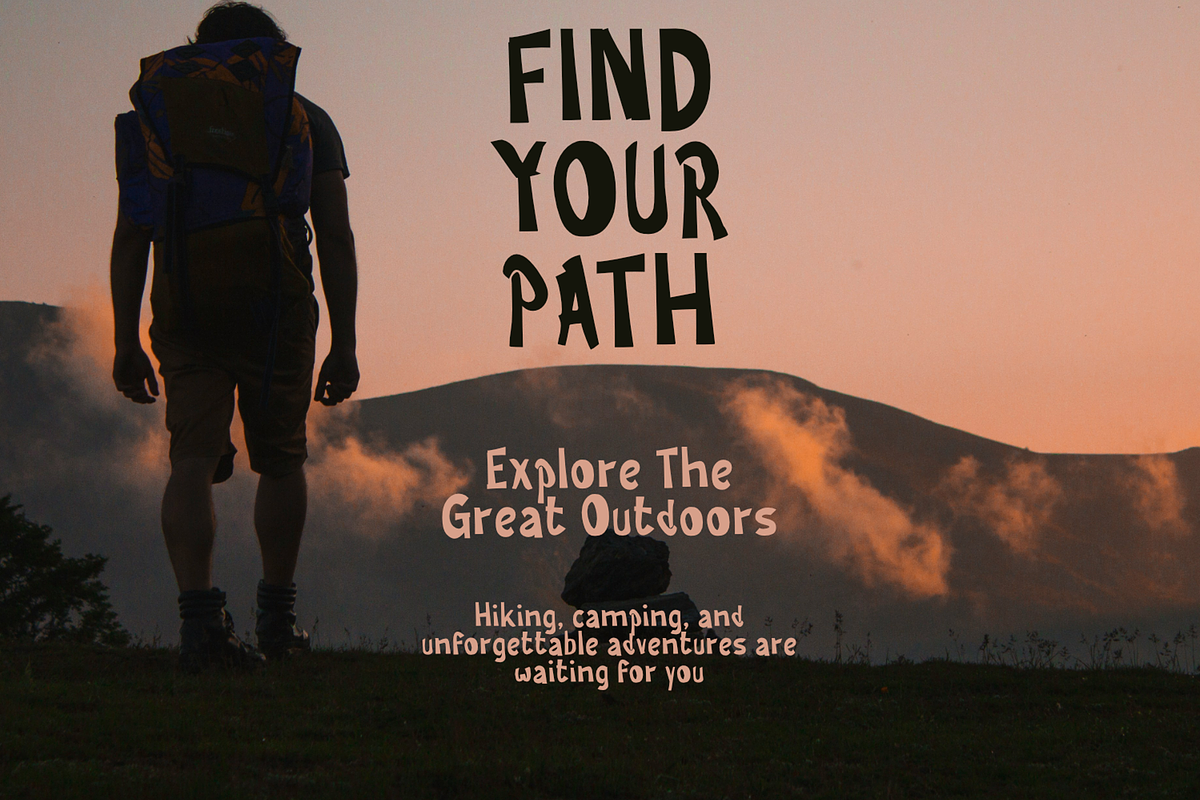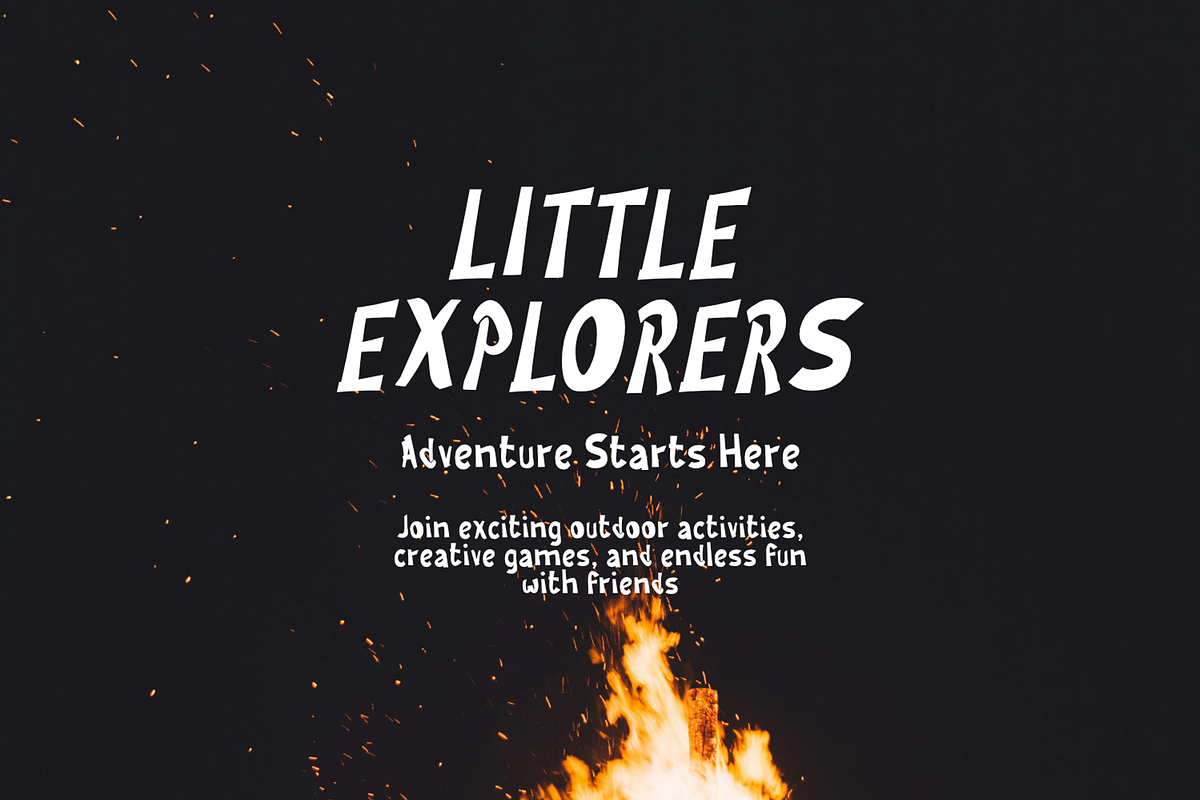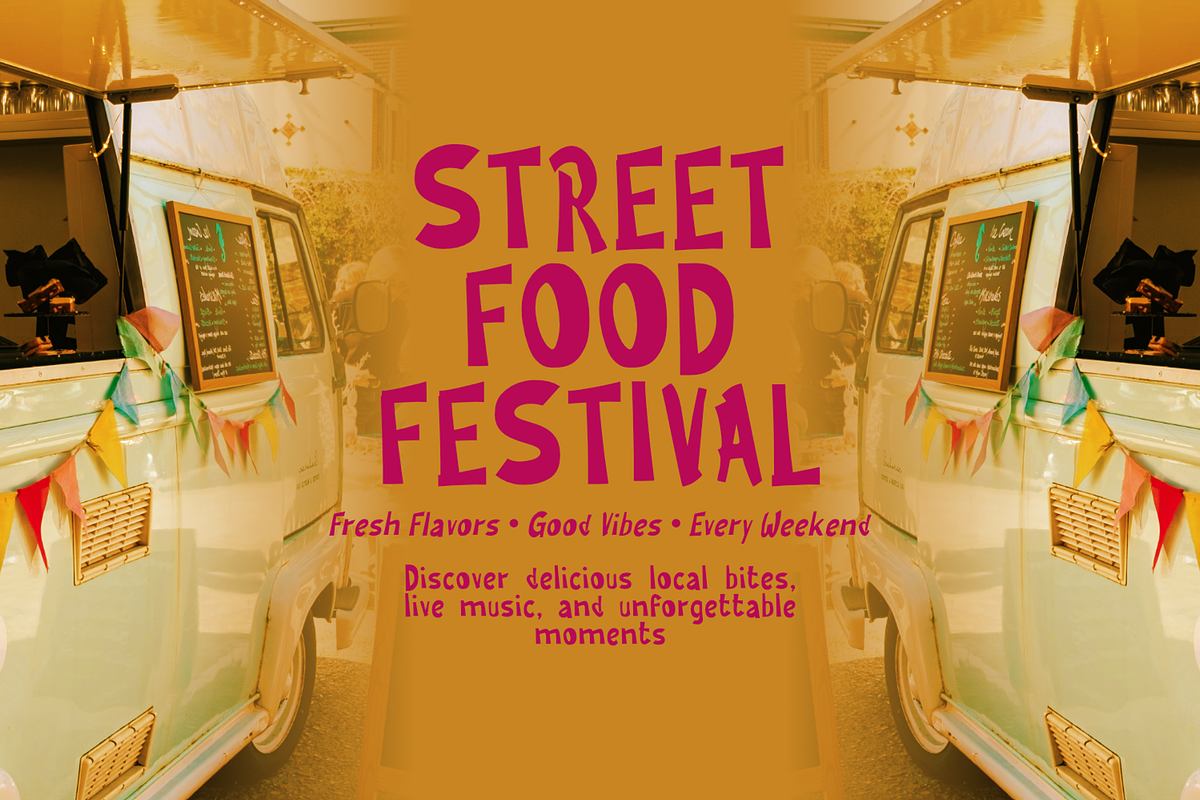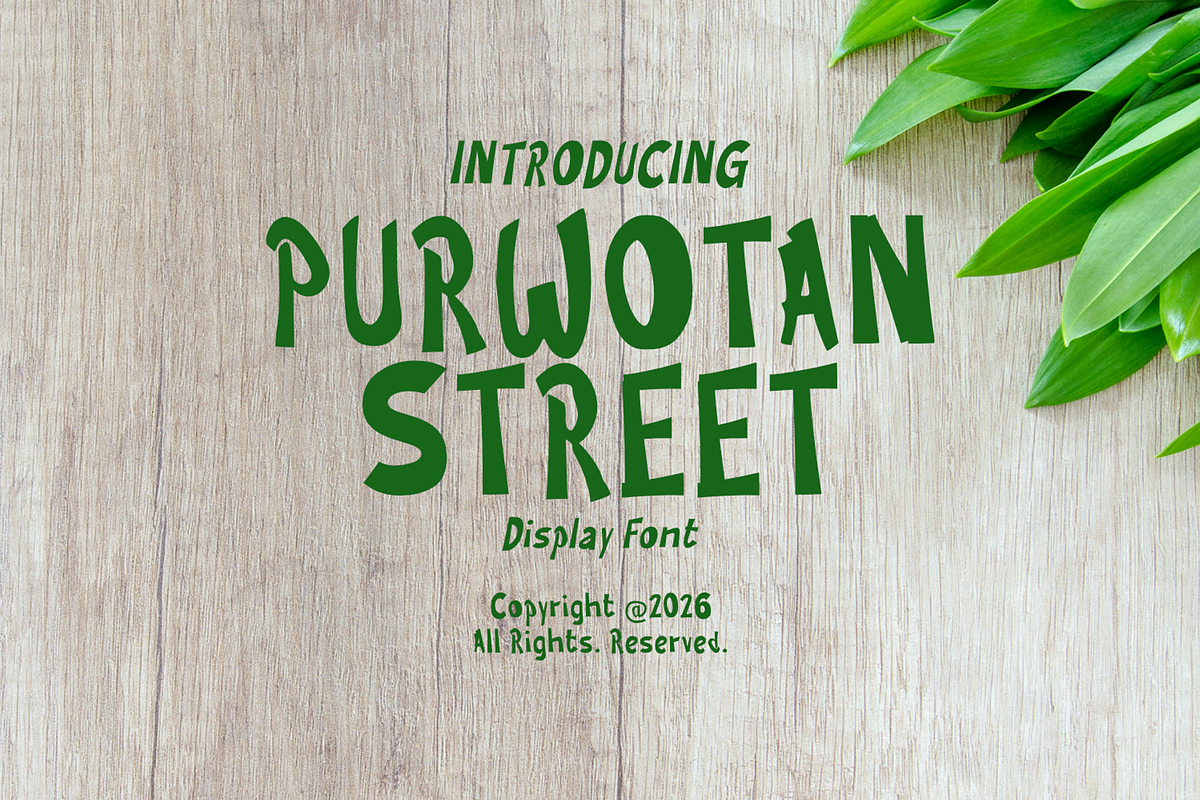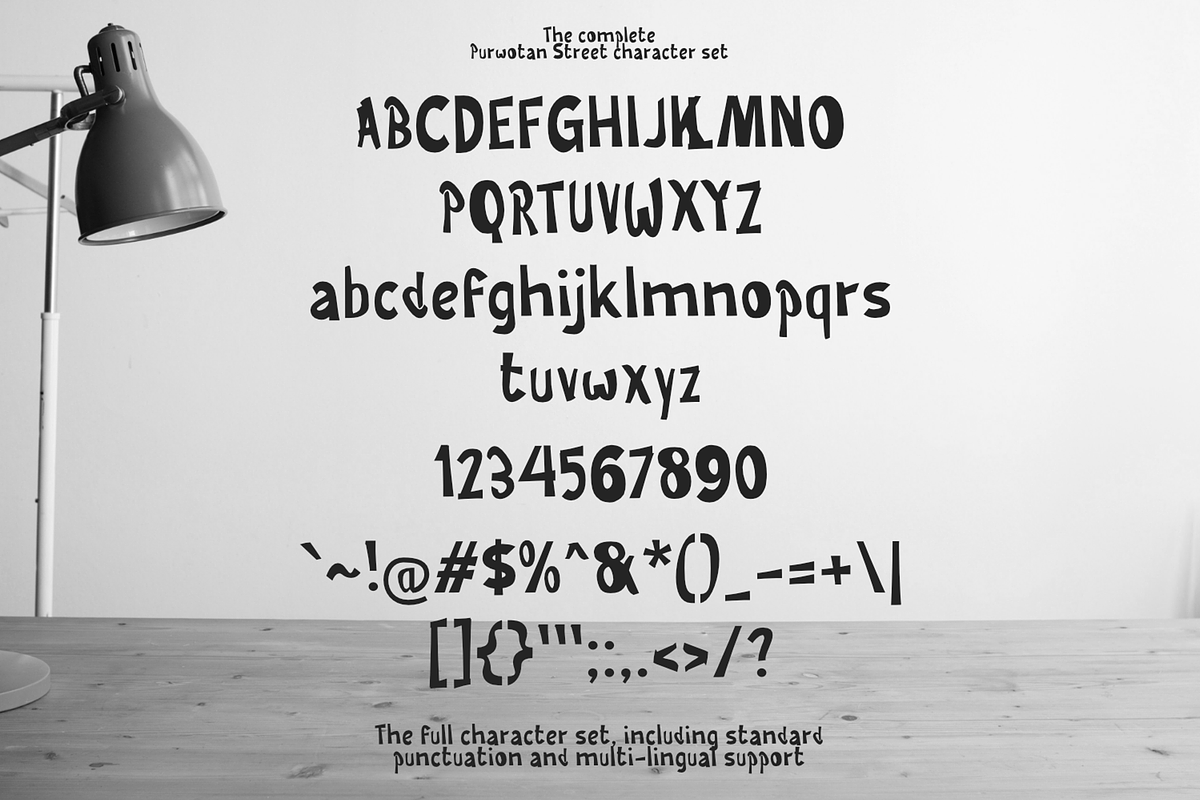
Purwotan Street Playful Display
Purwotan Street is a bold and playful hand-drawn display font that brings a fun, authentic, and creative personality to your designs. Featuring organic letterforms with a handcrafted touch, this font is perfect for projects that need a friendly, eye-catching, and unique appearance. Whether you're designing logos, branding, packaging, posters, café menus, children's products, social media graphics, apparel, or merchandise, Purwotan Street adds a charming street-inspired vibe with a modern handcrafted feel. Its distinctive style makes every headline stand out while maintaining excellent readability and character.
Regular & Italic